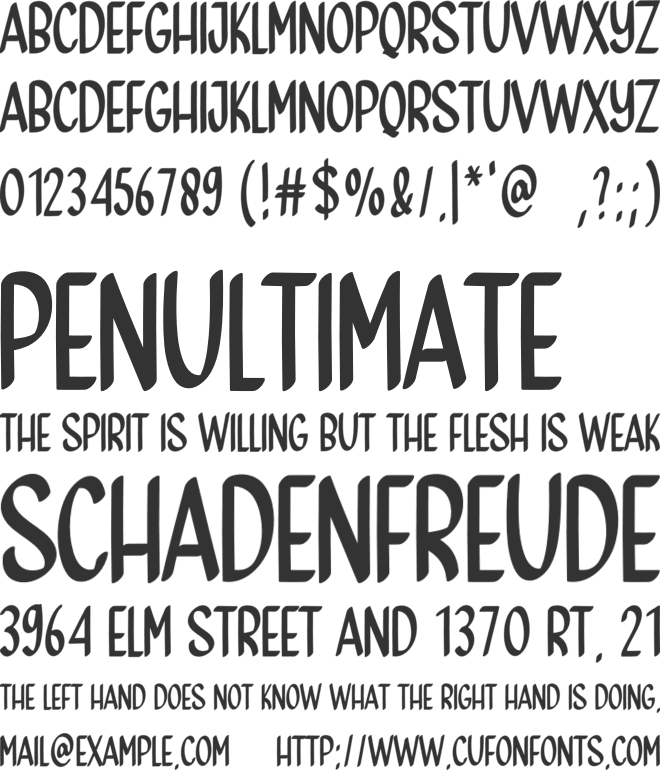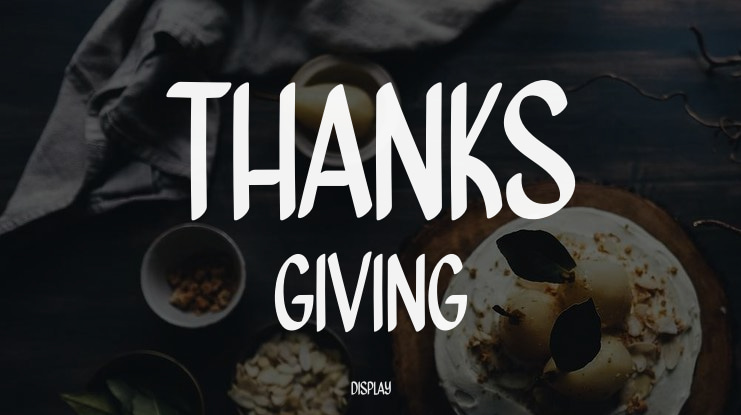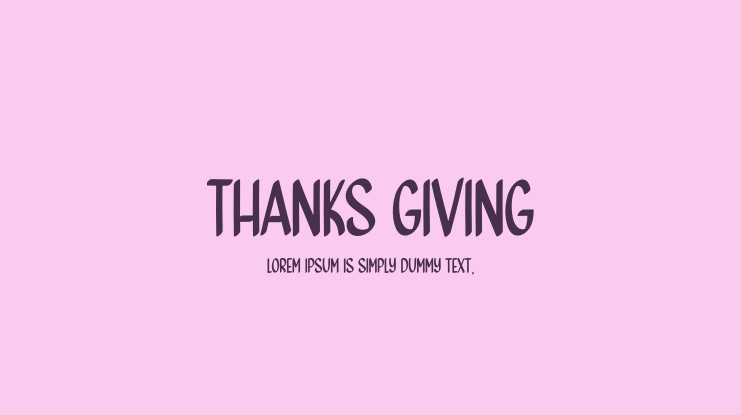
Thanks Giving Font
Our latest collection of stylish letters is perfect for various purposes including wall displays, wedding invitations, social media post logos, advertisements, product packaging, product designs, labels, photography, watermarks, invitations, stationery, and any project that requires a touch of elegant handwriting.